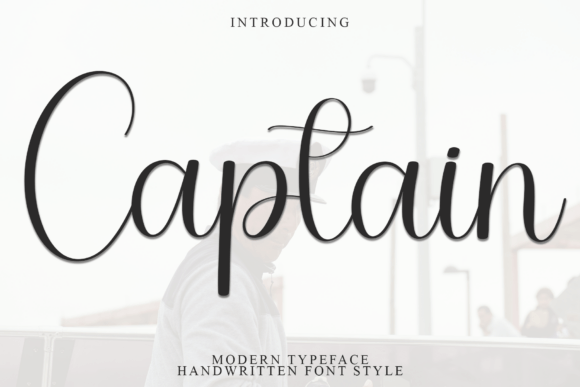
The Quest for the Perfect Font: How Captain Font Stole My Heart
I’ll never forget the frustration of scrolling through font after font, searching for the perfect one to bring my design project to life. As a designer, I’ve had my fair share of font dilemmas, but one font that has consistently delivered is Captain Font. With its casual and creative vibe, Captain Font exudes warmth and friendliness, making it perfect for personal projects, invitations, and social media graphics.
A First Impression: What I Love About Captain Font
Captain Font’s charming, hand-drawn aesthetic adds a fun and unique touch to any design. Here are a few things that I love about this font:
- ✨ Round, playful strokes that create a relaxed and approachable feel
- 🎉 A friendly and approachable vibe that’s perfect for designs that need a personal touch
The Not-So-Perfect: A Few Quirks to Consider
While Captain Font has stolen my heart, it’s not without its quirks. Here are a few things to keep in mind:
- 🤔 Limited use in formal or professional designs, as it may come across as too casual
- ⚠️ May not be suitable for very long blocks of text, as it can be a bit challenging to read
Exploring Alternatives: Similar Fonts to Captain Font
While Captain Font is a unique and charming font, there are other fonts that share similar characteristics. Here are a few alternatives to consider:
- Lobster: A elegant and refined script font with a similar friendly vibe
- Pacifico: A beautiful, modern script font with a relaxed and approachable feel
- Great Vibes: A fun and playful script font with a similar hand-drawn aesthetic
- Alex Brush: A elegant and refined script font with a whimsical touch
The Story Behind Captain Font: A Designer Inspiration
While the true story behind Captain Font may be unknown, it’s easy to imagine a designer who was inspired by the warmth and friendliness of hand-drawn fonts. Perhaps a designer who grew up surrounded by vintage posters and signs, Captain Font’s creator was driven to create a font that captured the same sense of approachability and charm.
| What is Captain Font? | Captain Font is a casual and creative font that exudes warmth and friendliness, perfect for personal projects, invitations, and social media graphics. |
| Is Captain Font suitable for formal designs? | No, Captain Font is best suited for informal and personal designs, as it may come across as too casual for formal projects. |